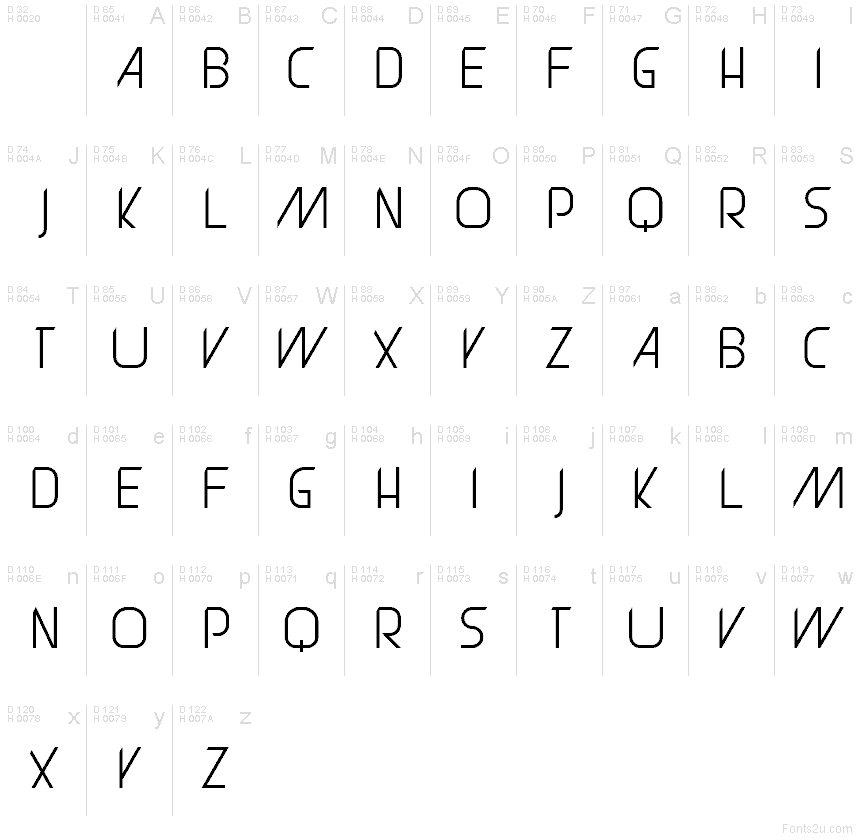
Anniversary Extavagant
Anniversary Extavagant font by Vladimir Nikolic is a free techno font. Built within the Anniversary family, it draws a clean wireframe through each letter—razor-thin lines, sharp diagonals, and rounded bends that feel like neon tubes bent with precision. The rhythm is airy and deliberate, giving headlines a sleek, high-voltage presence without visual noise.
Using Anniversary Extavagant, you get a crisp, futuristic voice that shines on sci‑fi posters, tech event branding, DJ flyers, gadget packaging, UI hero text, and motion graphics titles. Its single-weight strokes love big sizes and generous tracking. Pair this free font with a sturdy grotesk from the Anniversary family for body copy to ground its light, electric contours.